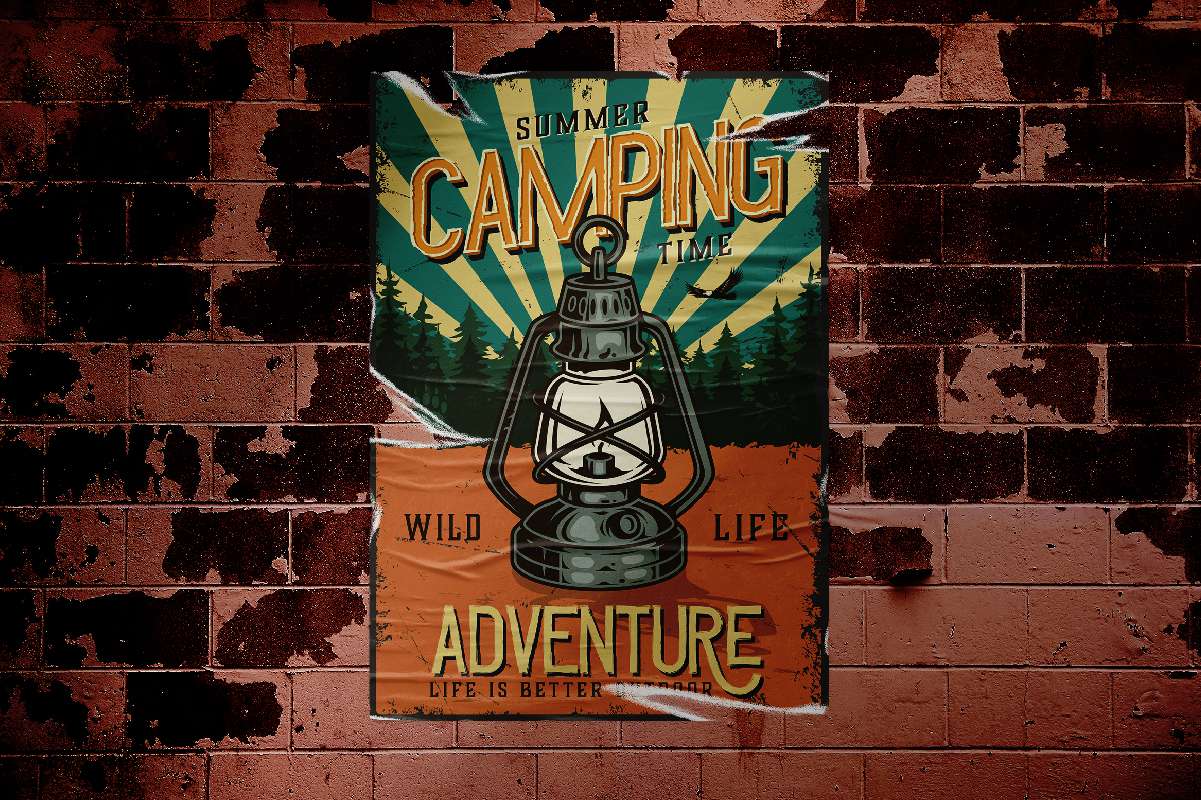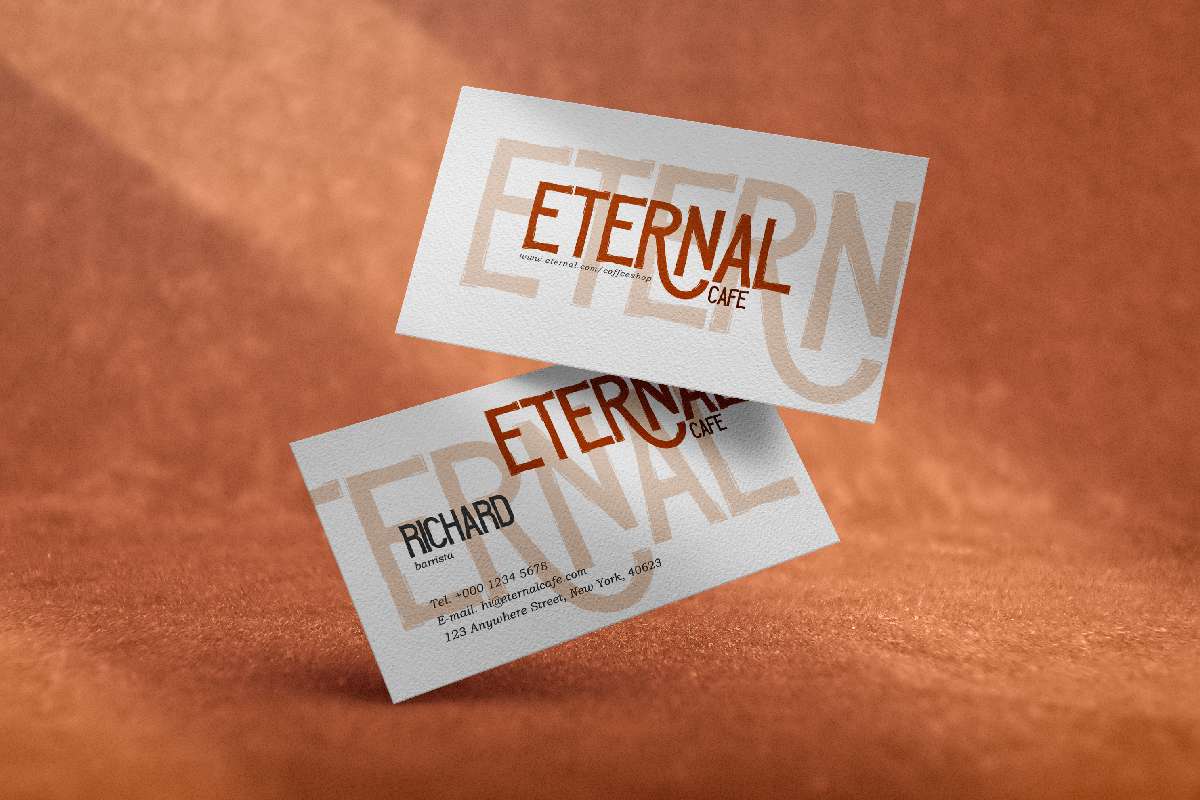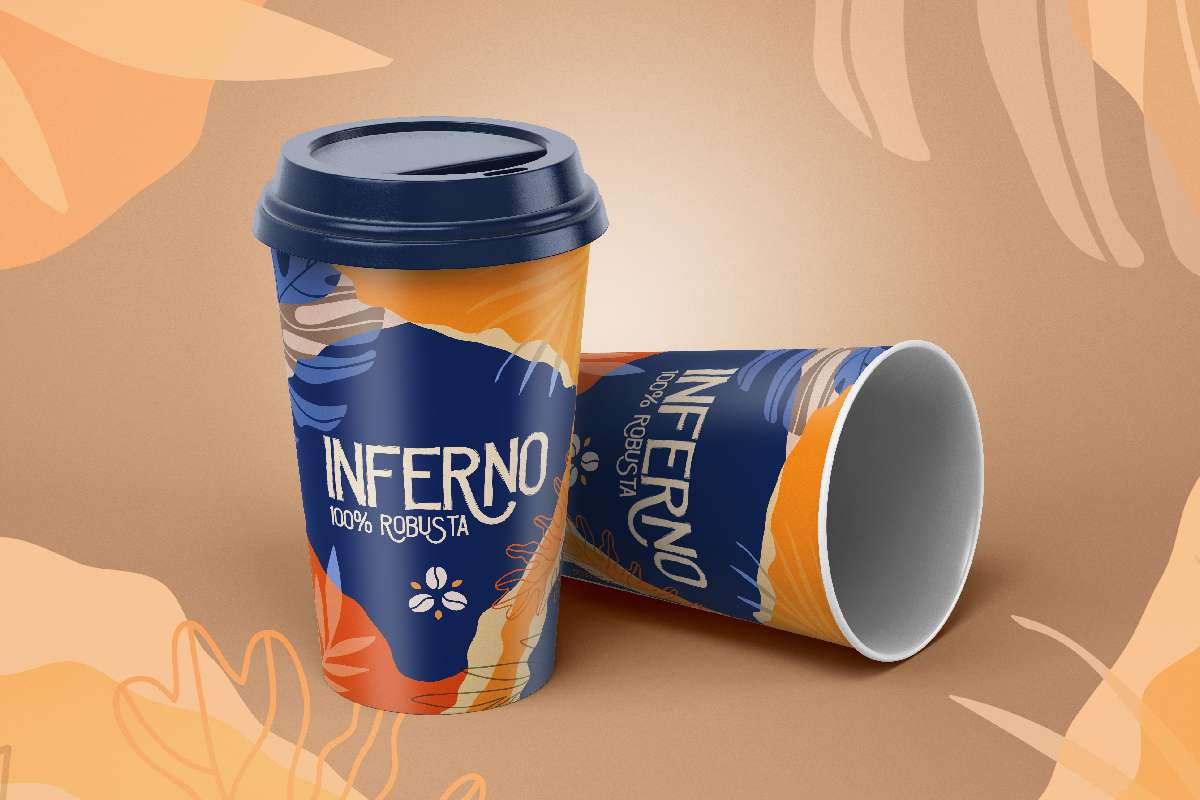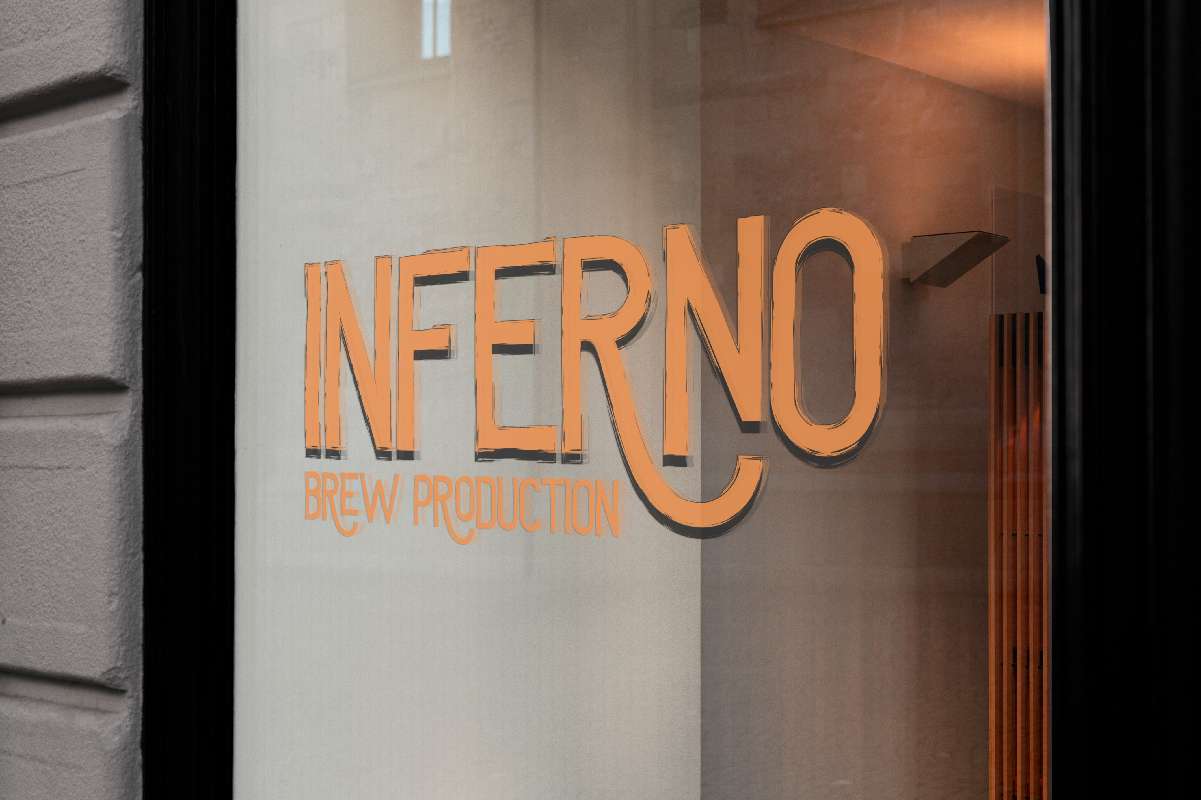
Welson Font
Welson Display Font
This is a display sans serif font with horror and mysterious theme. This font has a retro/old theme as shown by the rough line effect on each letter, it looks awesome in almost any context. Use it for logo branding, poster, products packaging, signage, title, and more!
Welson Font includes set of Uppercase Basic Characters, Numerals and Punctuation. And also featuring perfect alternates and ligatures, this font would be great for any project that requires an aesthetic, old and unique look and perfect your extraordinary projects!